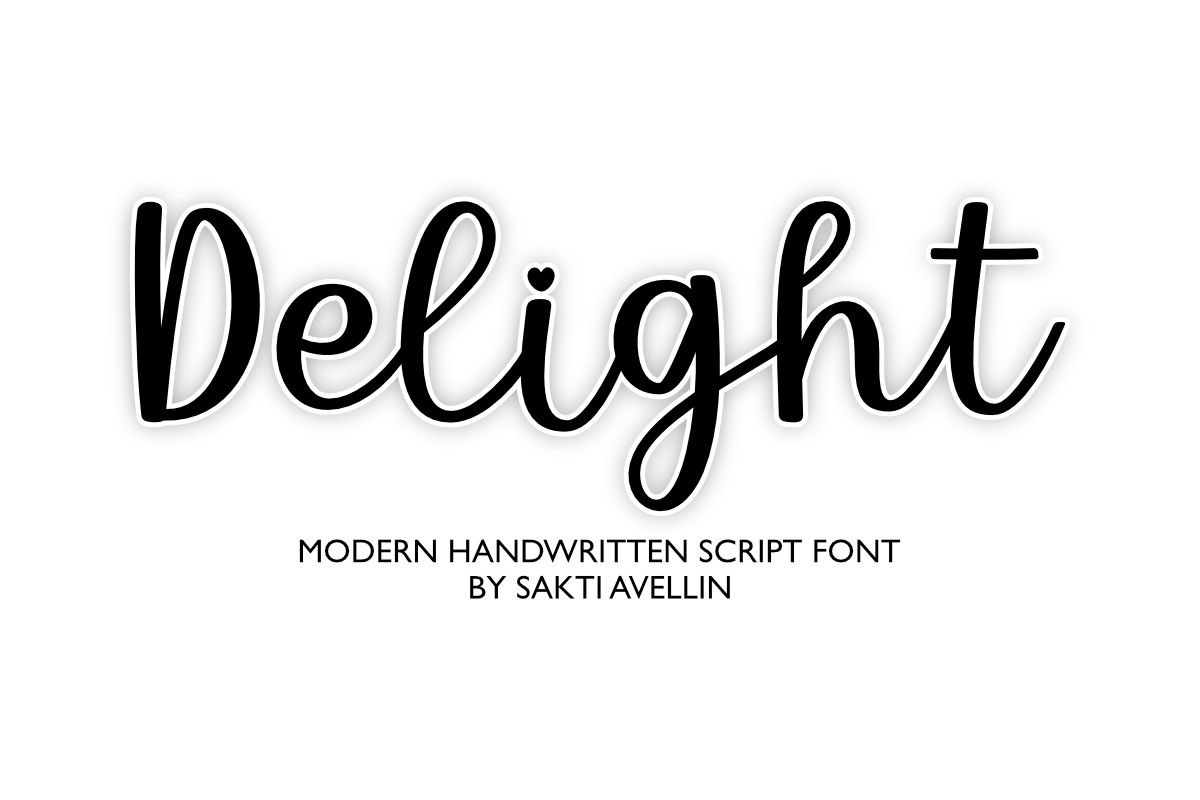
Delight - Handwritten Script Font
Delight is a beautiful modern handwritten script font designed to bring an elegant and personal touch to your creative projects. This versatile calligraphy typeface features fluid, natural strokes and a charming heart detail over the lowercase letters, making it a perfect choice for wedding invitations, feminine branding, social media quotes, and romantic greeting cards. Its handcrafted aesthetic ensures your designs feel warm, sophisticated, and authentic. Whether you are working on boutique logos, fashion packaging, or personalized stationery, Delight adds a graceful and contemporary flair to every piece of work.